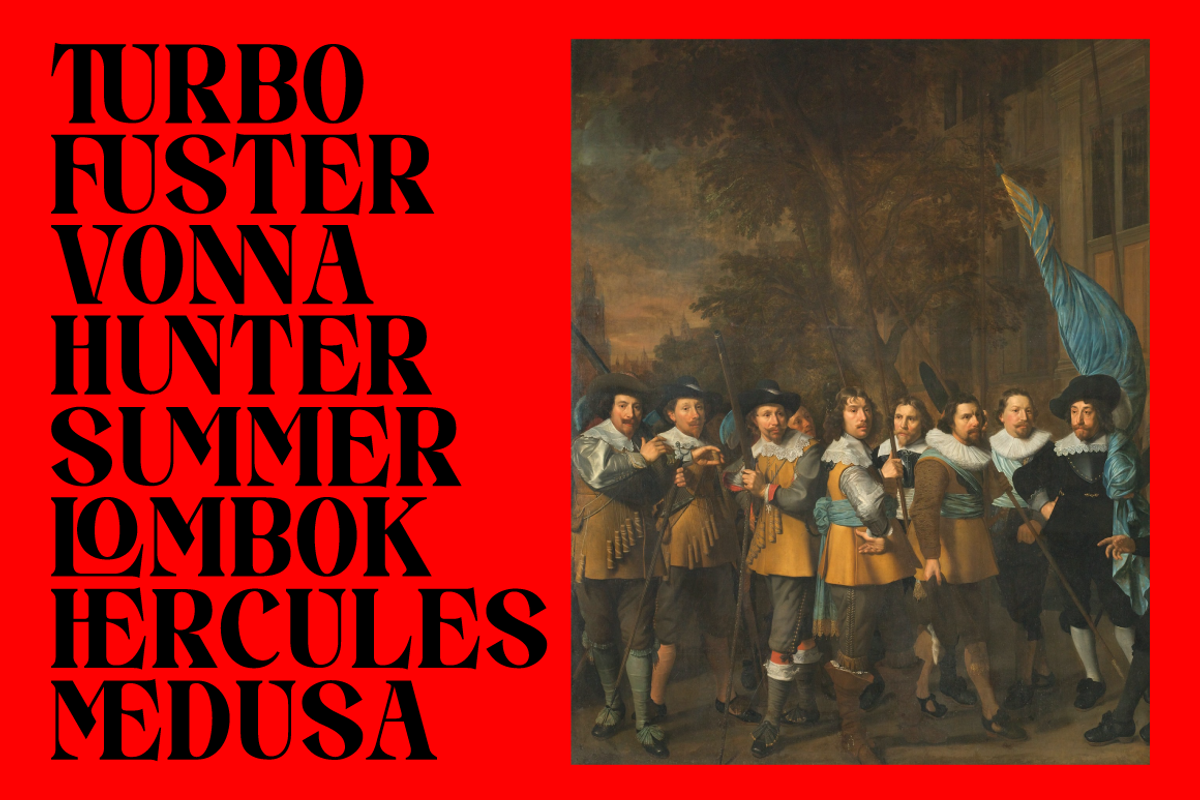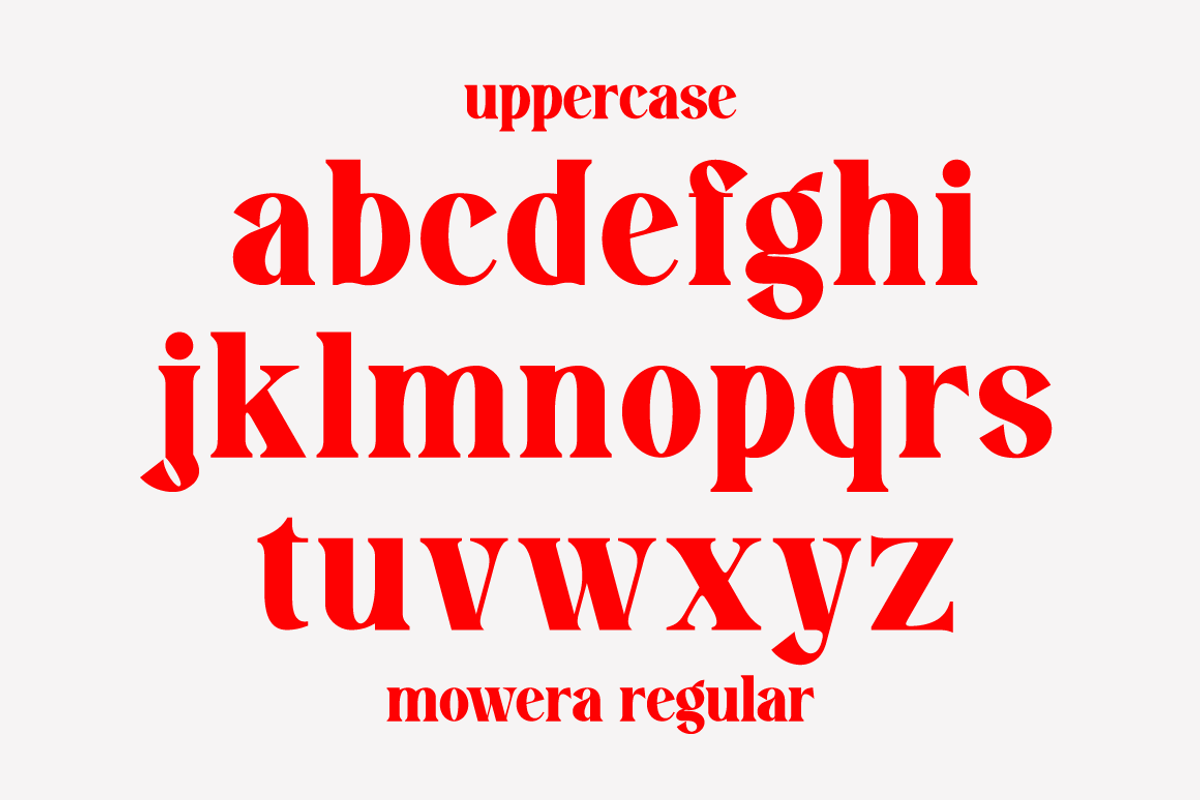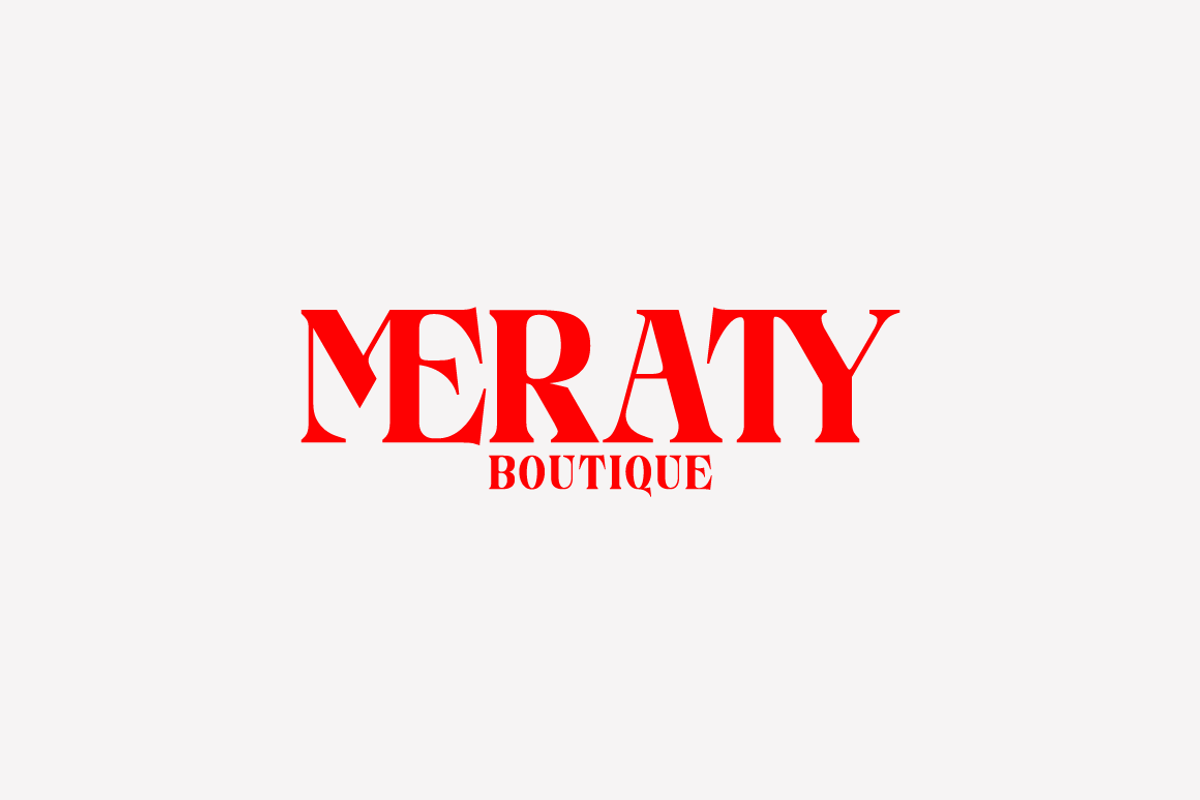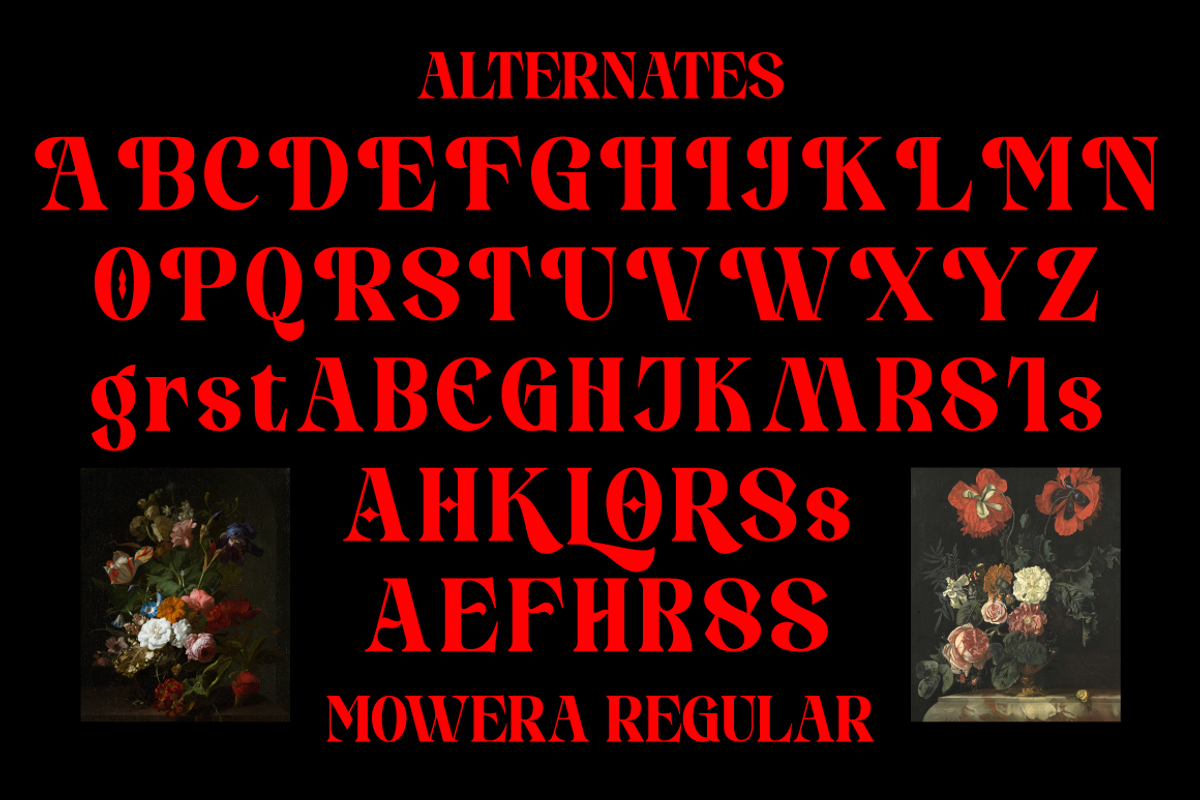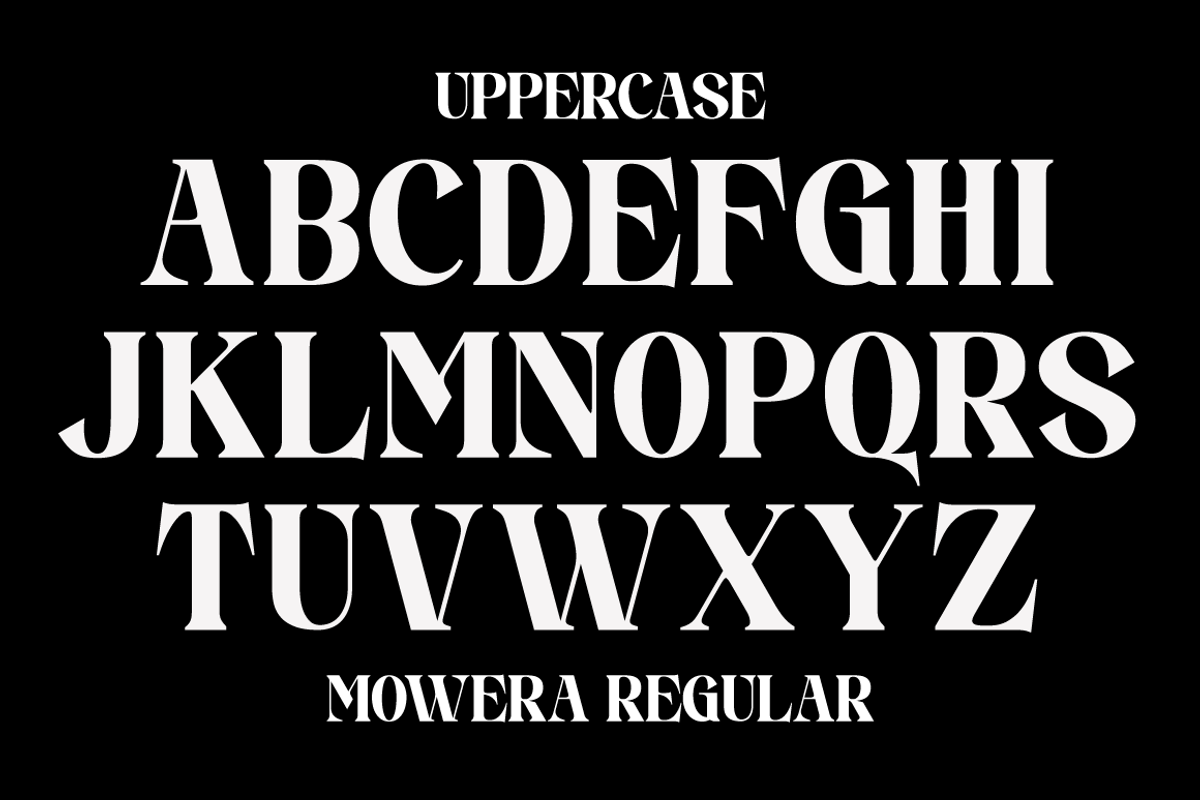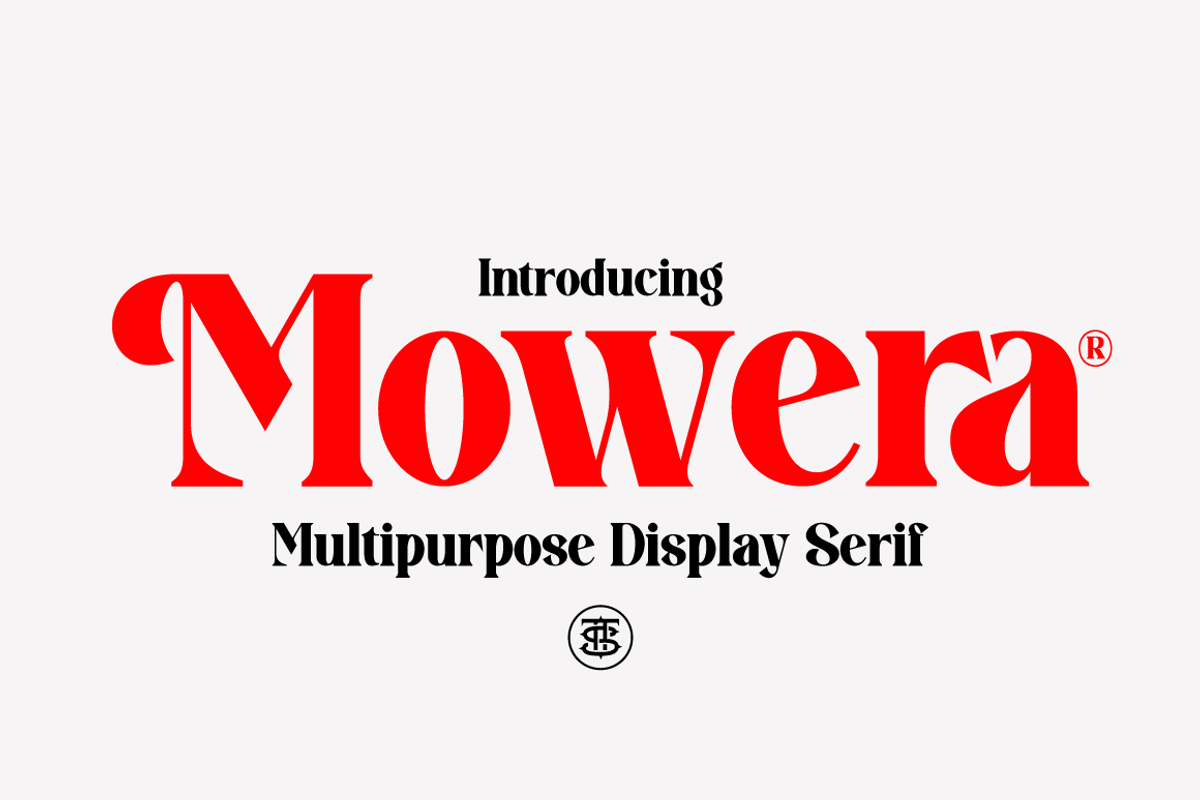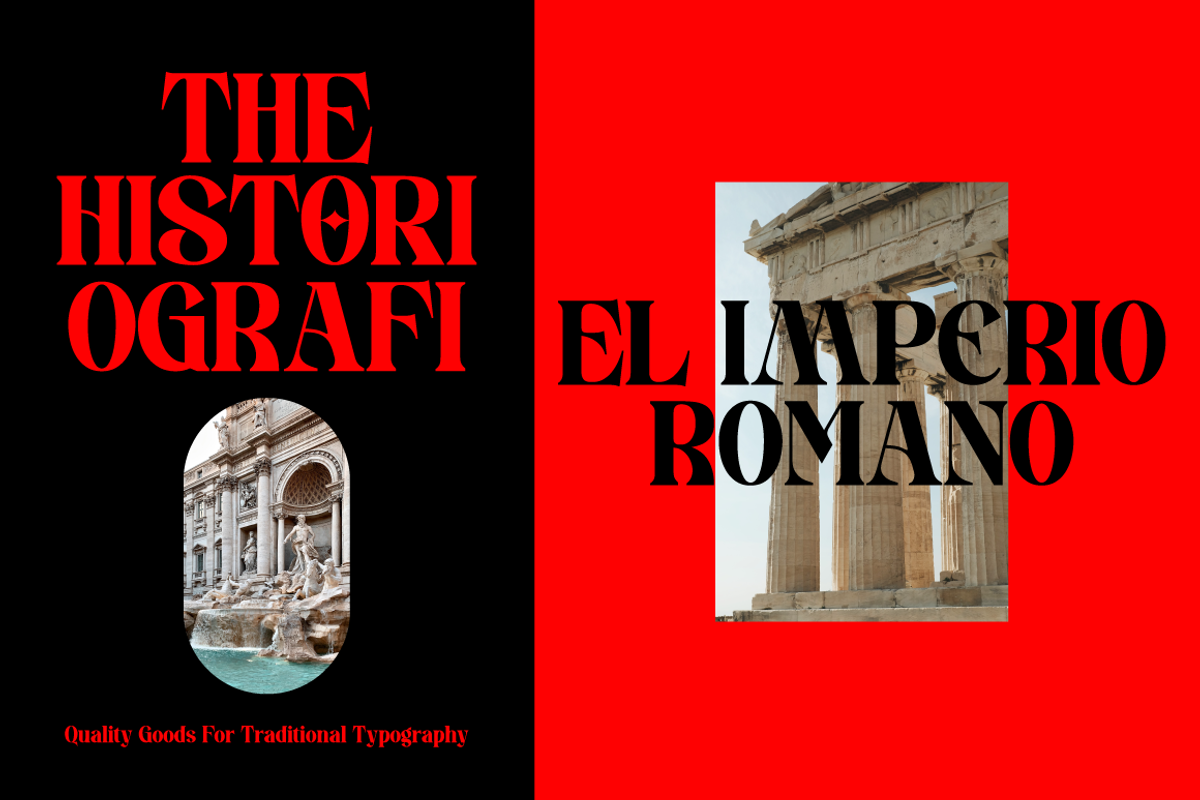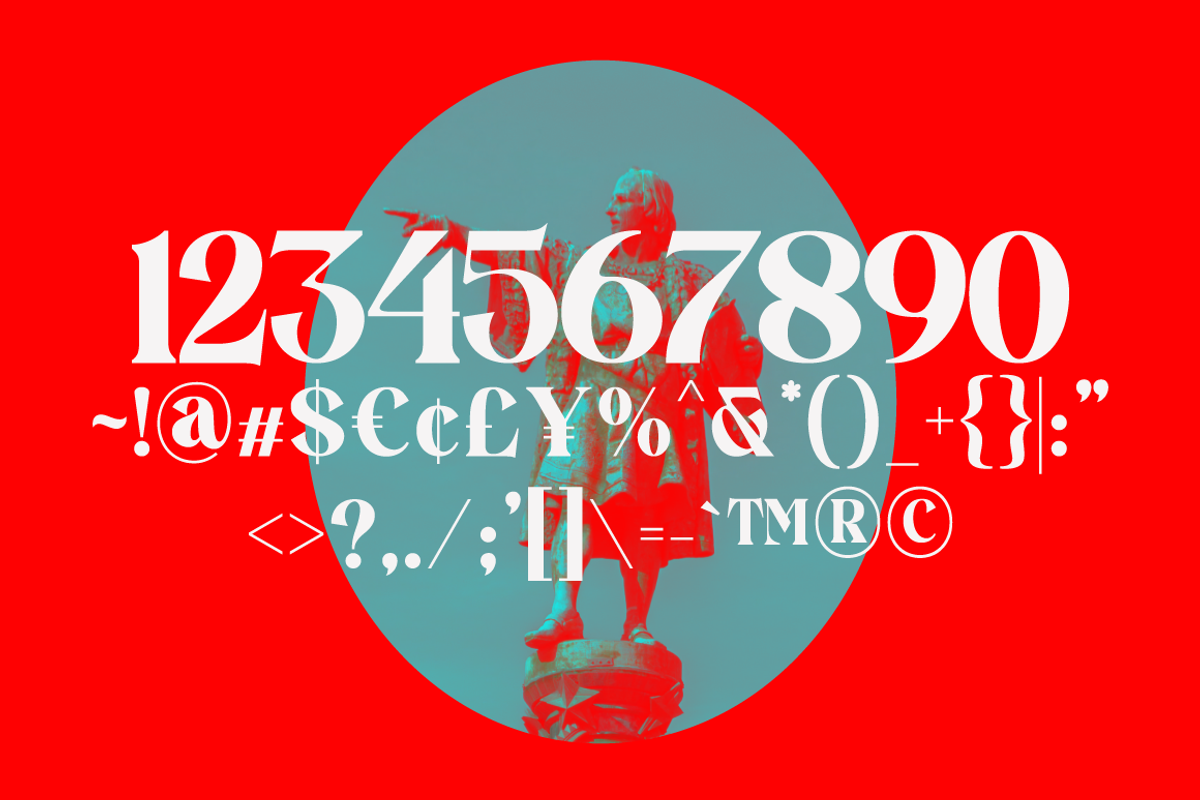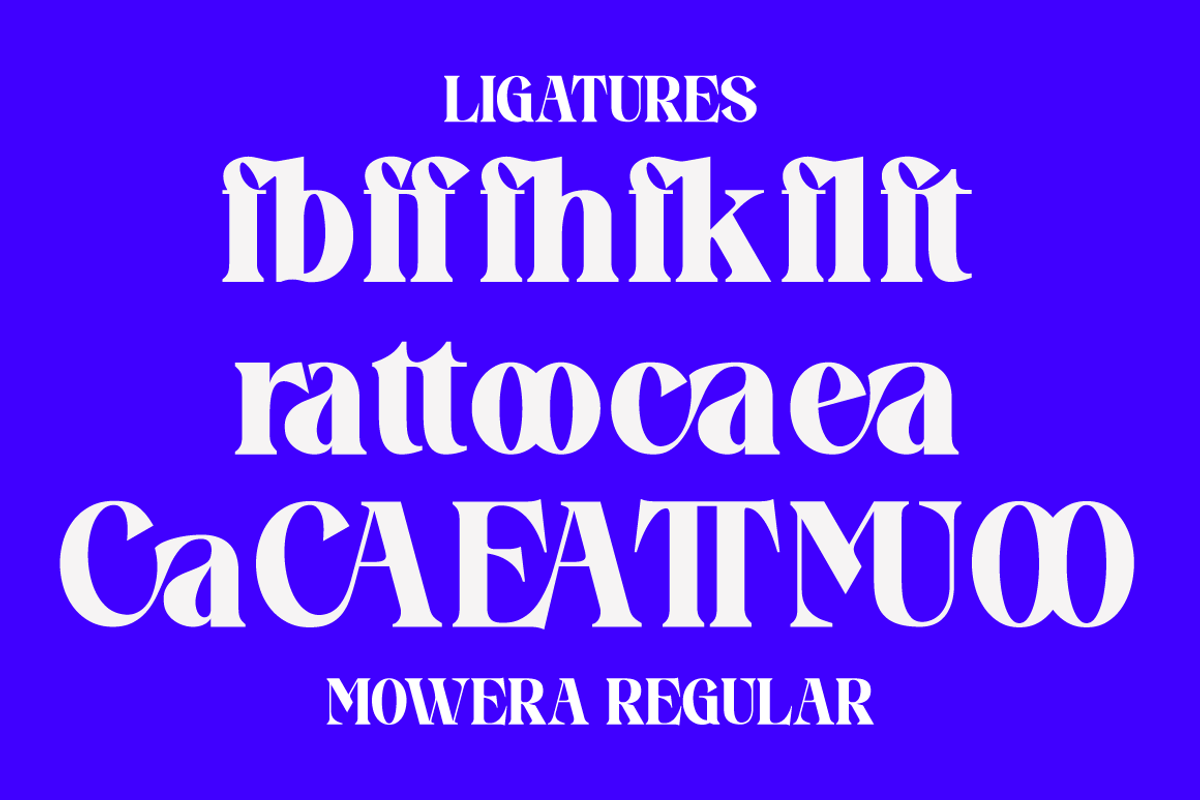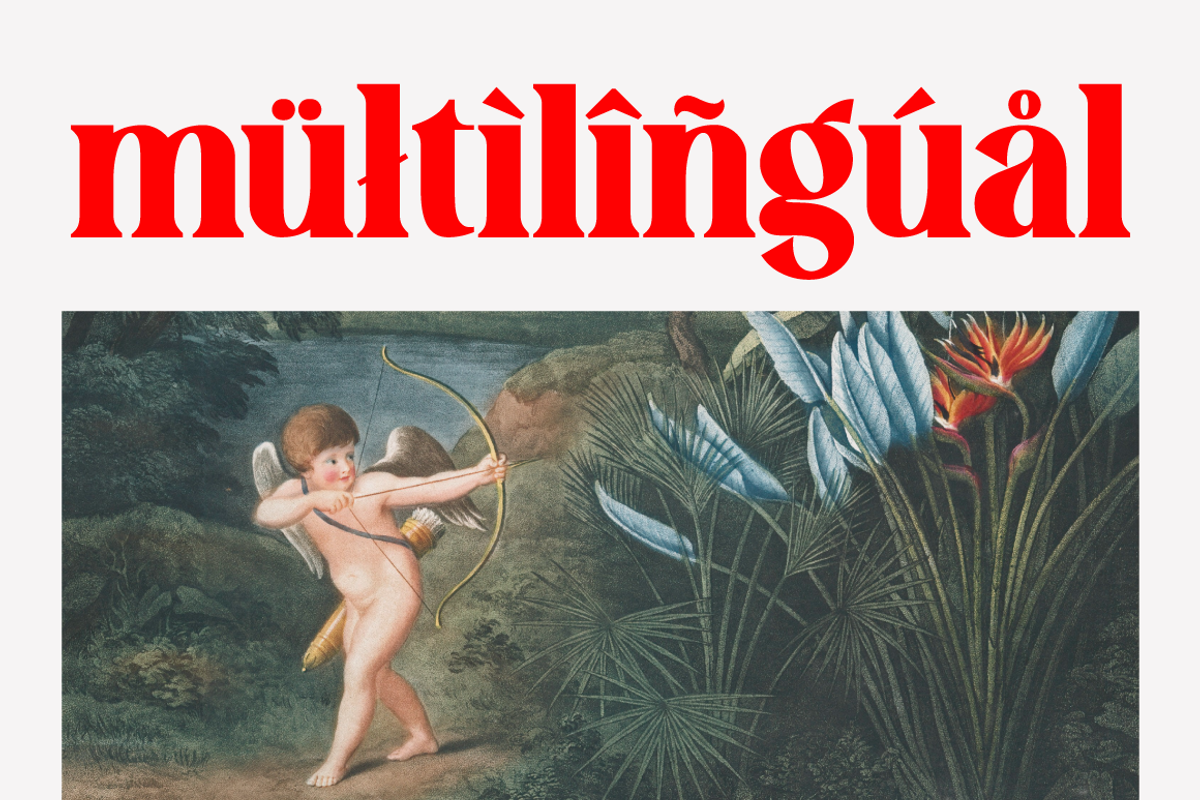
Mowera - Bold Serif
Mowera a new fresh & modern serif with a strong style, a dancing baseline! So beautiful on invitation like greeting cards, branding materials, business cards, quotes, posters, and more!
Mowera Display Typeface is the part of a strong and modern Bold display. This typeface both impressive at display sizes and easily readable in text size, while the sharp shapes of the triangular serif and the distinctive letter shapes show their strength in logo design and impressive editorial use.
- Unique Letterforms